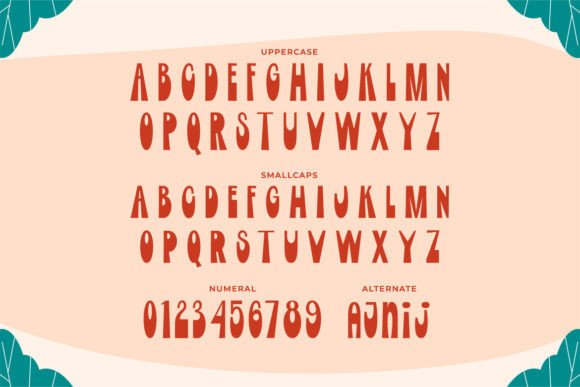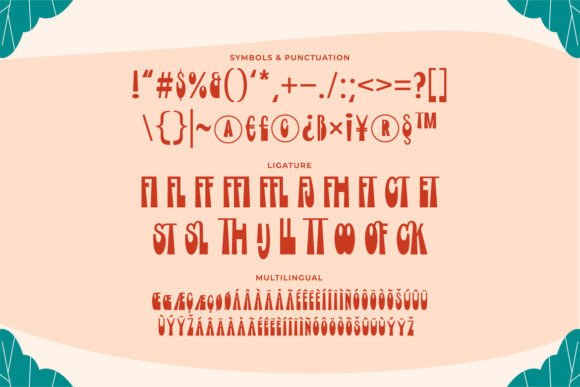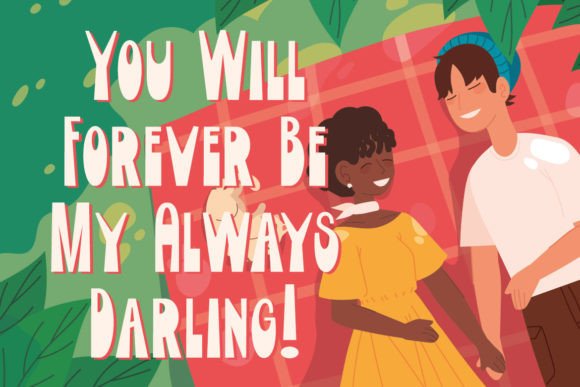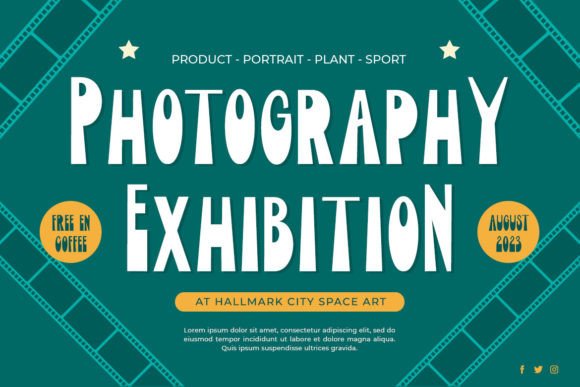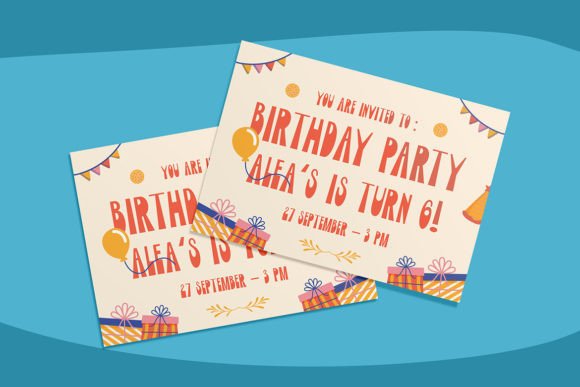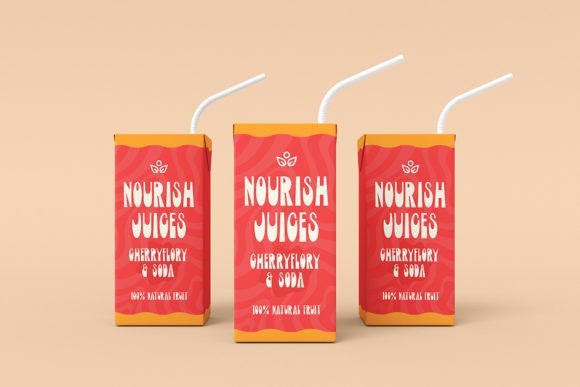
Introduction to Philipa Font Font
Fonts play a crucial role in design, and the Philipa Font font is a typeface that brings both character and versatility to any project. Whether you’re working on a branding project, a website, or a print design, the Philipa Font font offers a unique style that can elevate your work.
Philipa is a tall display font, carefully handcrafted to become a true favorite.
Its casual charm makes it appear wonderful down-to-earth, readable, ultimate, and versatile This font will look outstanding in any context, whether itβs being used on busy backgrounds or as a standalone headline especially on cute design.
Key Features of Philipa Font Font
Why Choose Philipa Font Font?
The Philipa Font font is more than just a typeface β it’s a design tool that helps you communicate your message with style and clarity. Its unique character set and versatile design make it suitable for a wide range of applications, from elegant invitations to bold headlines.
With its carefully crafted letterforms and balanced proportions, the Philipa Font font ensures readability and visual appeal across all mediums.
What makes Philipa Font font special?
The Philipa Font font stands out with its unique design, exceptional readability, and versatility across various design applications.